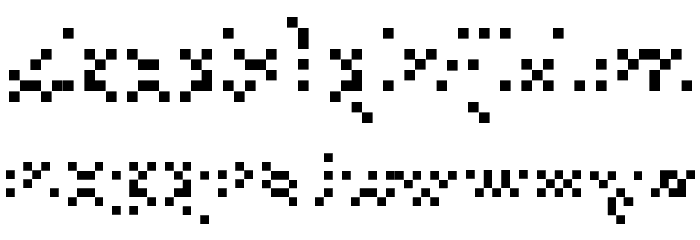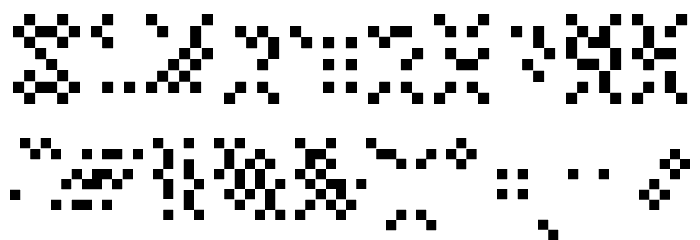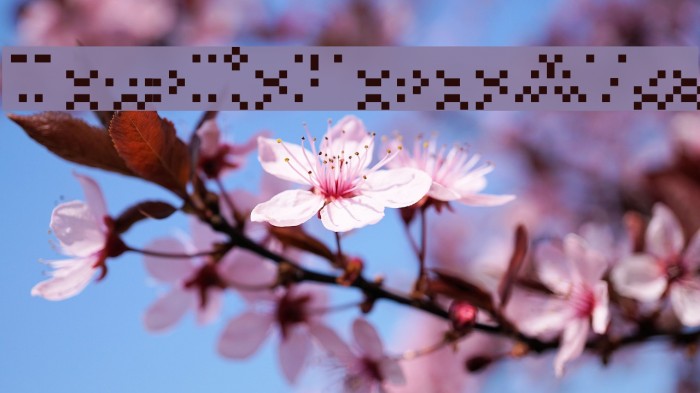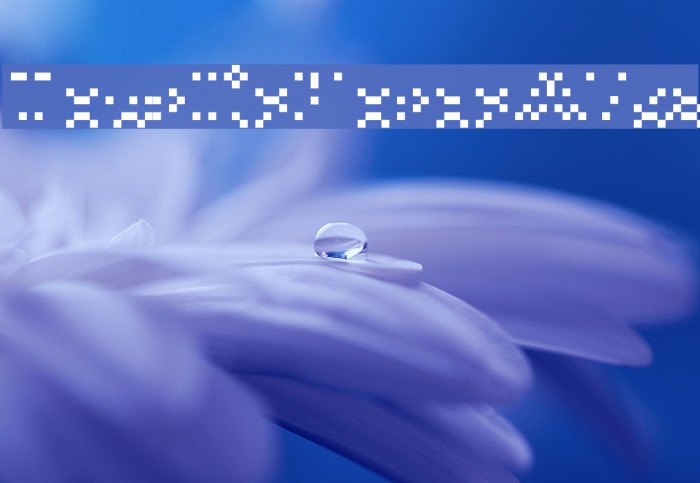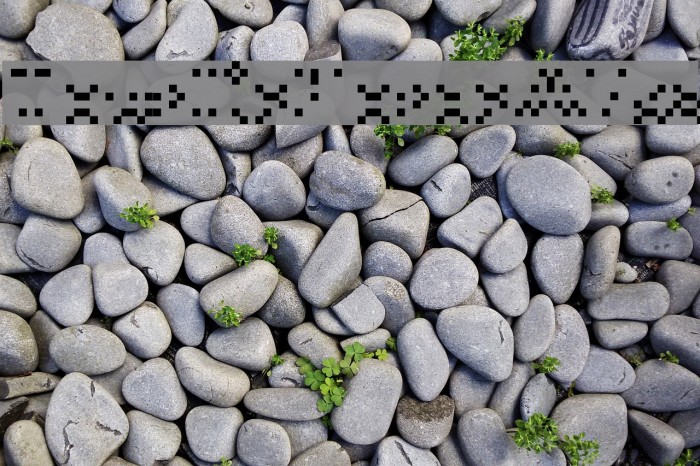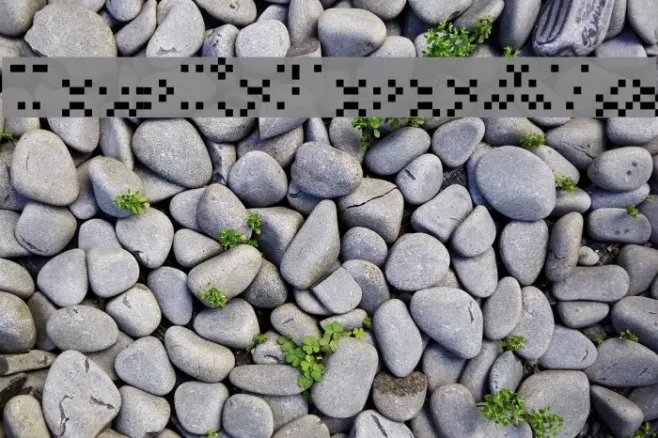
TourDeForceAlias Font
This font is a pixelated, digital-style typeface that mimics the appearance of early computer or video game text. Each character is composed of small, square blocks, giving it a distinctly retro and technological feel. The uppercase and lowercase letters maintain a consistent height, while the numerals and special characters are designed to match the overall pixelated aesthetic. The font's uniformity and grid-like structure make it ideal for projects that aim to evoke a sense of nostalgia or a digital theme.
A pixelated, retro digital-style font with a uniform, blocky appearance.
- Proposed Projects: Ideal for retro video games, digital art projects, tech-themed posters, and nostalgic branding.
- Overall Style: Retro, Digital
- Use Case: Logos, Posters, Digital Art